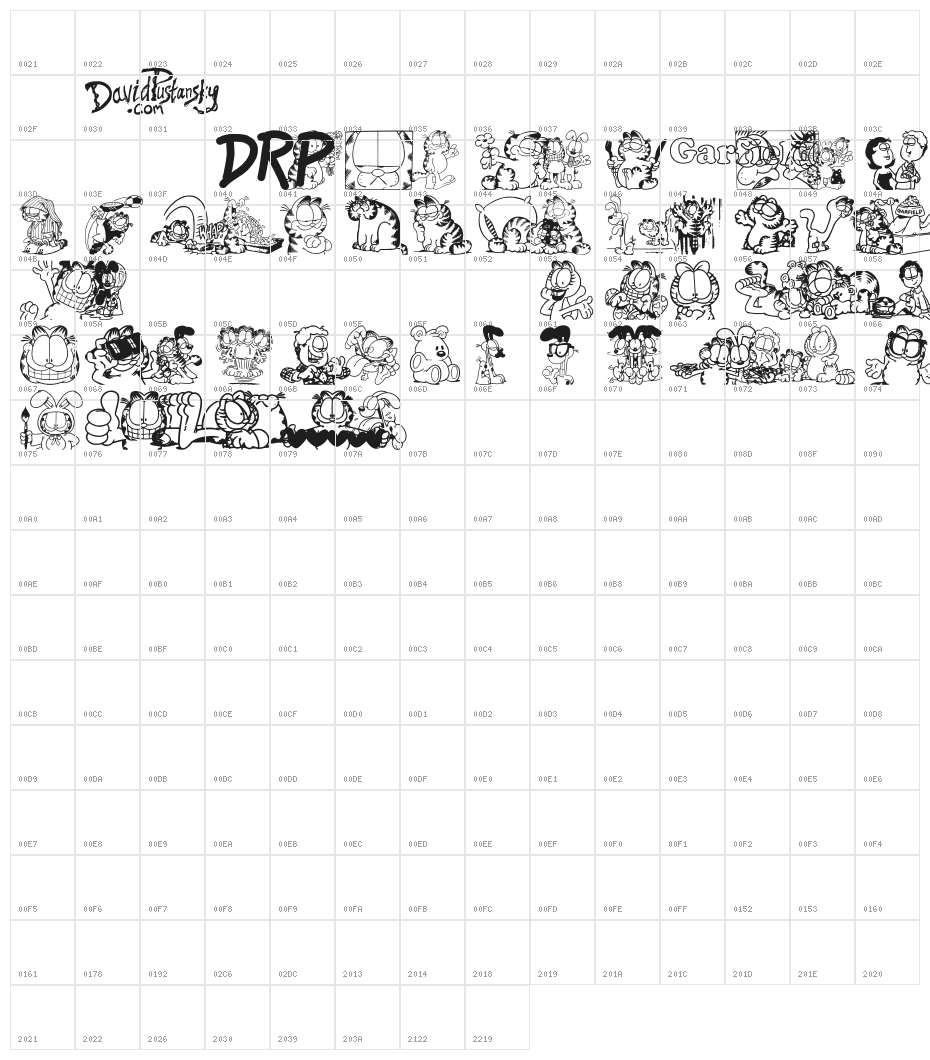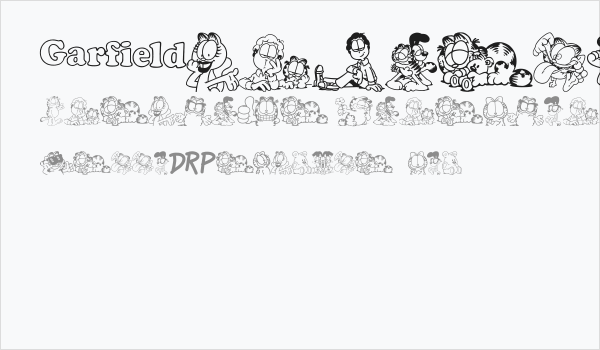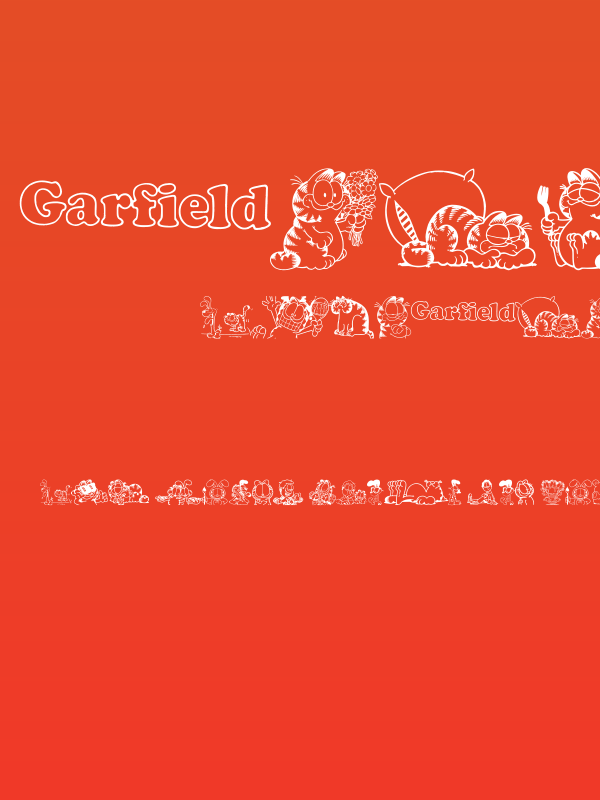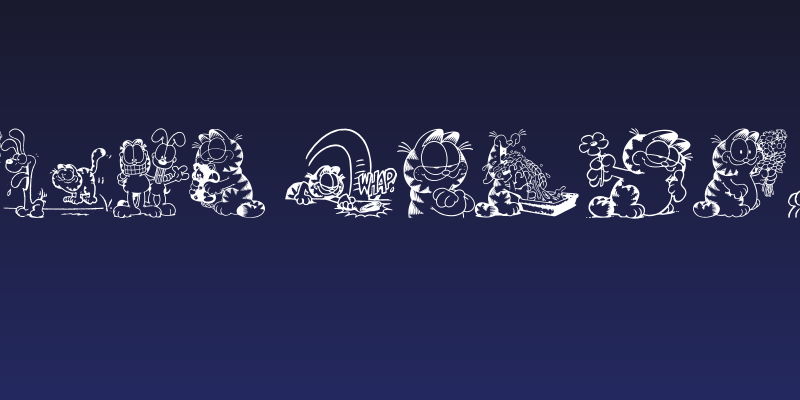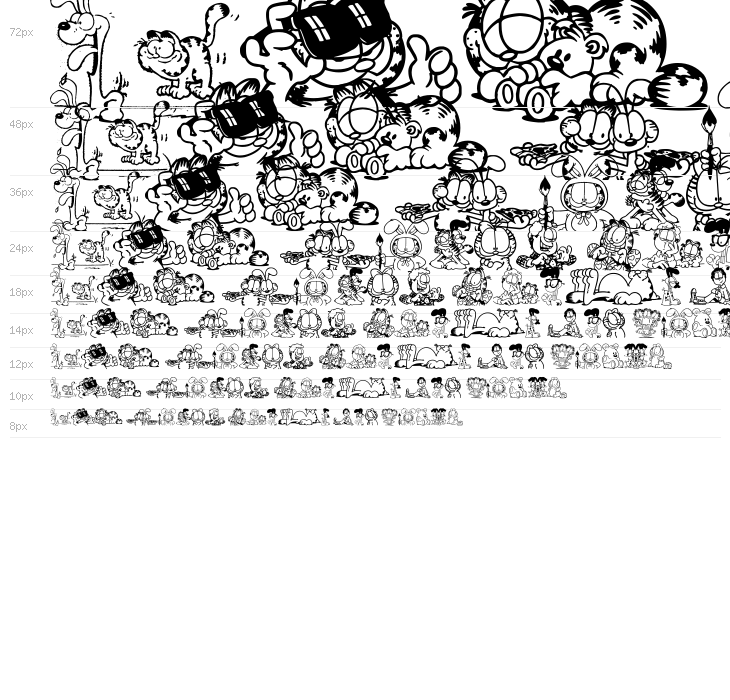
Garfield Hates Mondays Loves Fonts Font
Garfield Hates Mondays Loves Fonts Description
This is not a traditional font but rather a collection of illustrations featuring the iconic character Garfield and his friends. Each character or scene represents a letter or symbol, making it a playful and thematic representation rather than a standard typeface. The illustrations are detailed and capture the humor and personality of the Garfield comic strip, with each character depicted in various humorous poses and situations. This set is more of a decorative or novelty typeface, designed to bring a sense of fun and nostalgia to any project. The style is consistent with the original comic strip, maintaining the classic look and feel of the beloved characters.
| Overall Style | Playful, Comic, Nostalgic |
| Use Case | Decorative headings, Themed graphics, Comic art projects |
| Proposed Projects | Ideal for comic-themed projects, children's books, playful invitations, or any design requiring a touch of humor and nostalgia. |